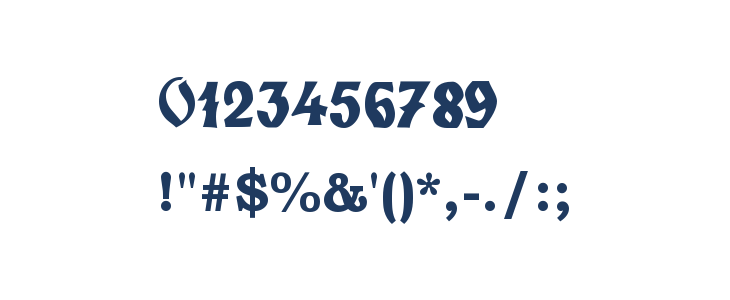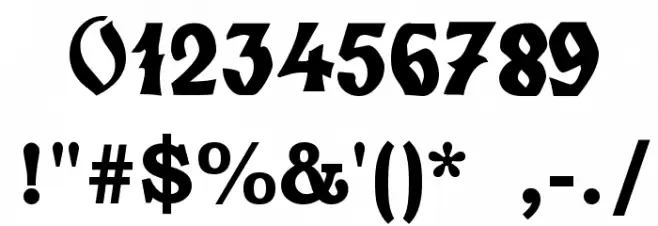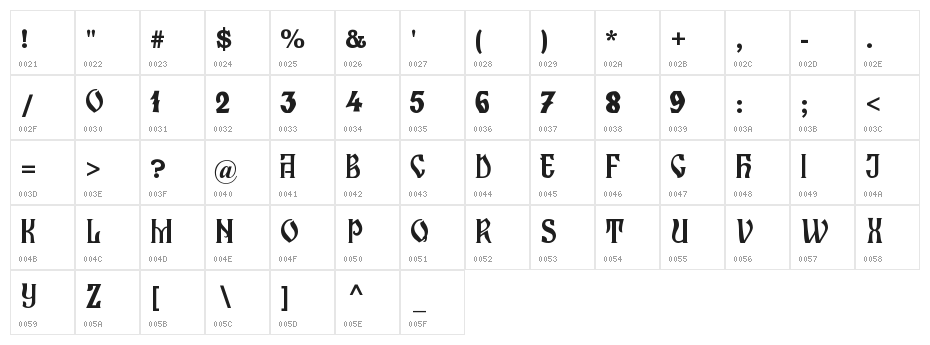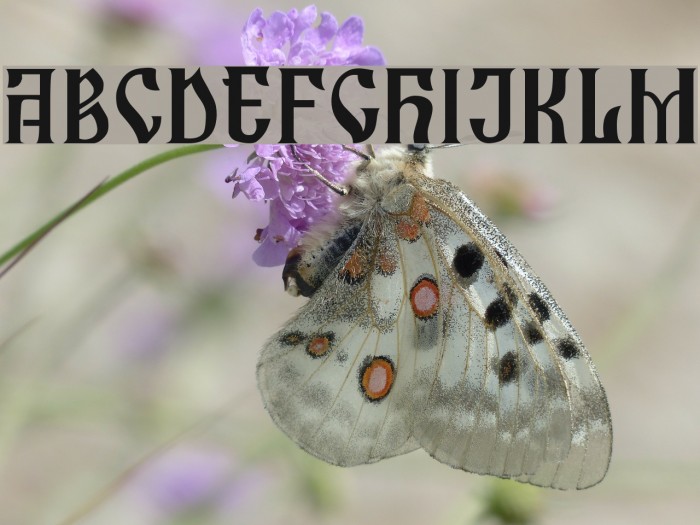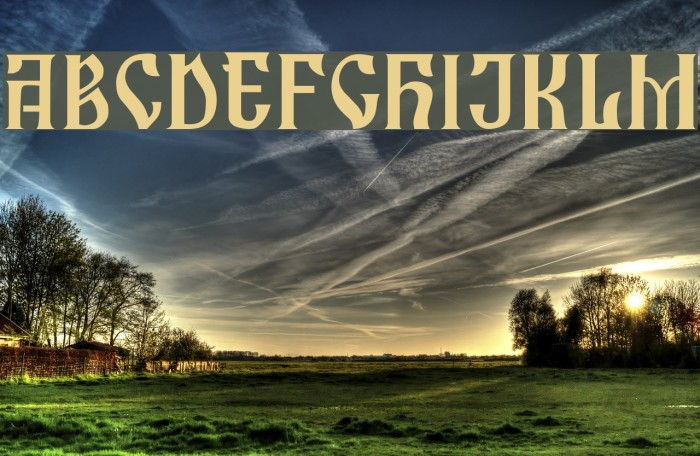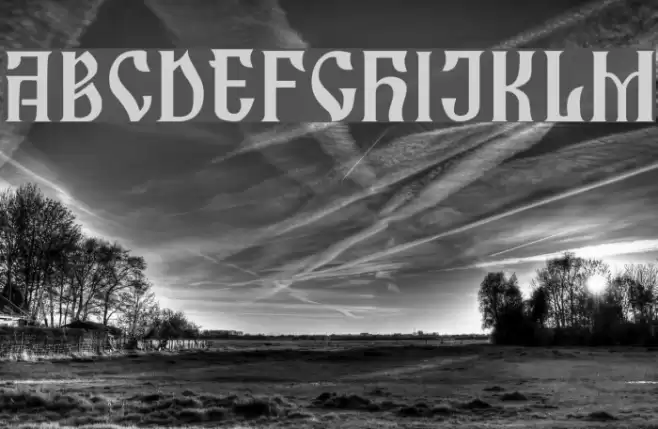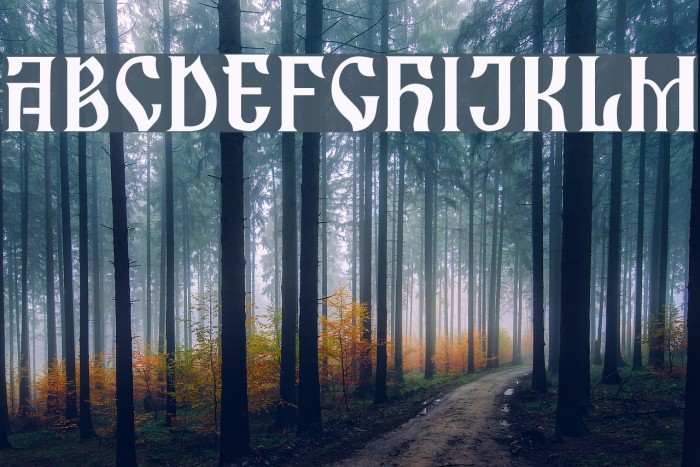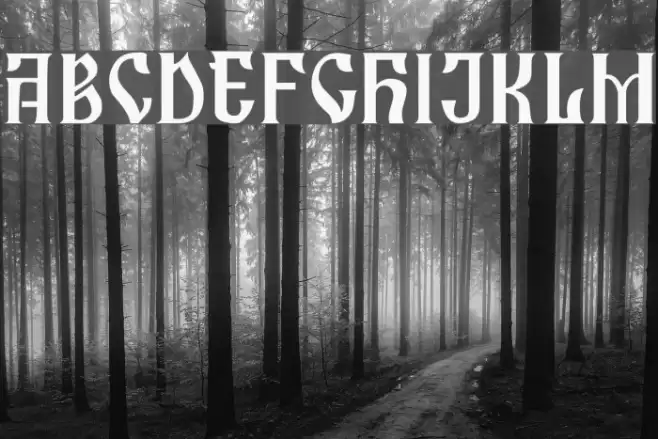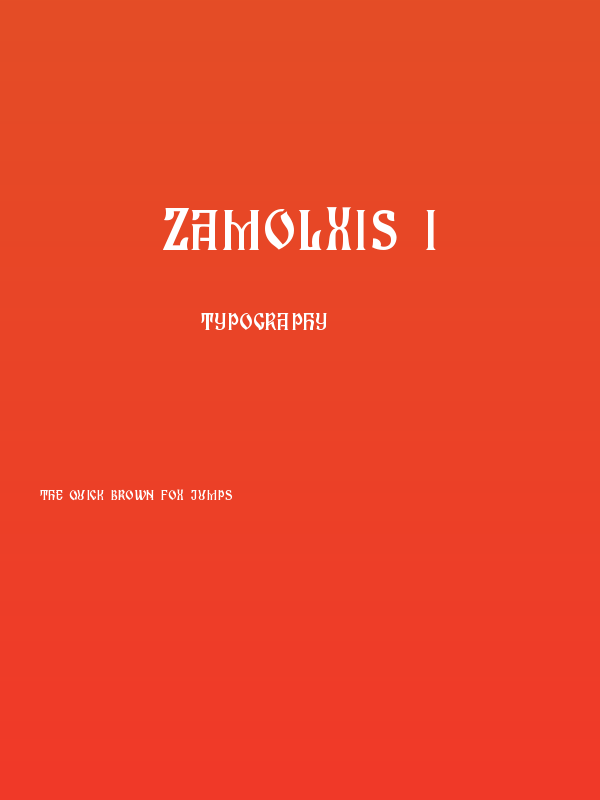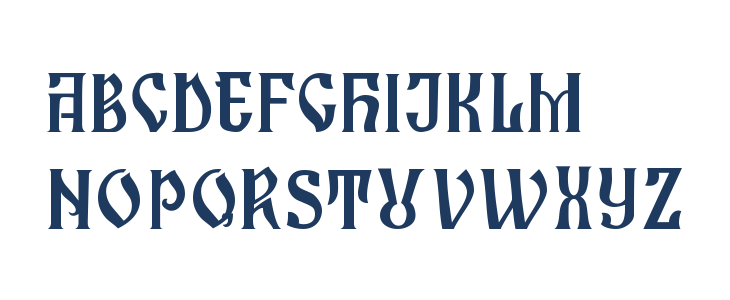
Zamolxis I Font
Zamolxis I Description
This font features a bold and dramatic style with a distinct medieval flair. The uppercase letters are characterized by sharp, angular serifs and a strong vertical emphasis, giving them a commanding presence. The lowercase letters maintain the same boldness, with unique curves and angles that add to the font's distinctive look. The numerals are equally bold, with a consistent weight that complements the letterforms. Special characters are designed with the same attention to detail, ensuring a cohesive appearance across all glyphs. The overall design is reminiscent of Gothic or Blackletter styles, making it ideal for projects that require a historical or fantasy aesthetic.